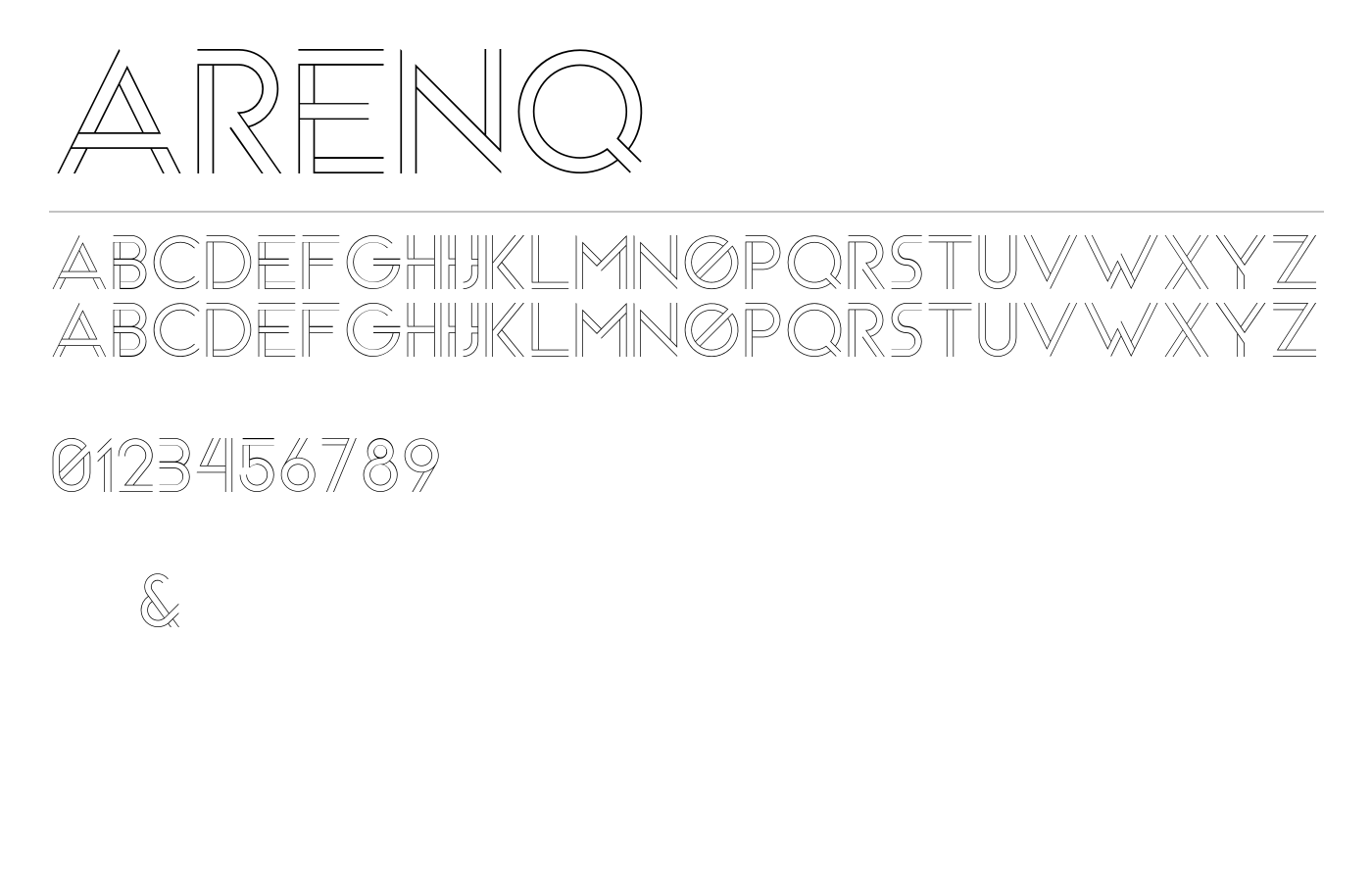
Arenq is a modern, geometric sans serif font with a sleek, thin outline style that gives it an airy and futuristic feel. Its clean lines, sharp angles, and unique letterforms, like the stylized Q and the double-line elements, make it perfect for contemporary branding, editorial headlines, and stylish packaging where a minimalist yet distinctive look is desired. This font works best in large sizes where its fine details can shine and add a sophisticated, avant-garde touch.
Arenq Font
About Arenq Font
| Font family | Arenq Font |
| Designer | Paulo R |